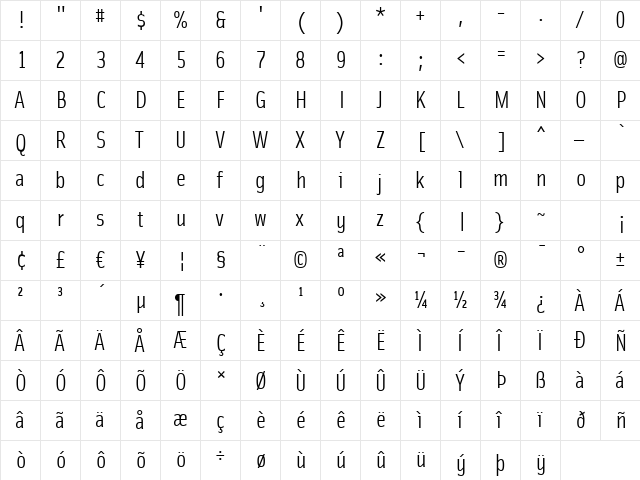
SolexRegularLining Regular
| Foundry | Emigre Inc. |
| Designer | Zuzana Licko |
Design Context for SolexRegularLining Typeface
SolexRegularLining takes a measured approach to typography — its balanced proportions and neutral character make it a reliable workhorse for both digital and print work.